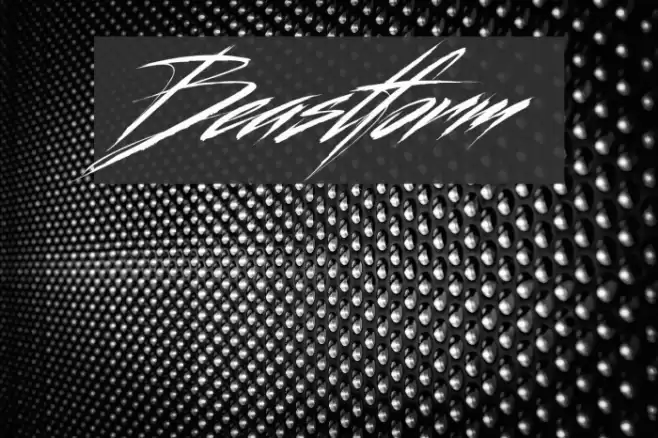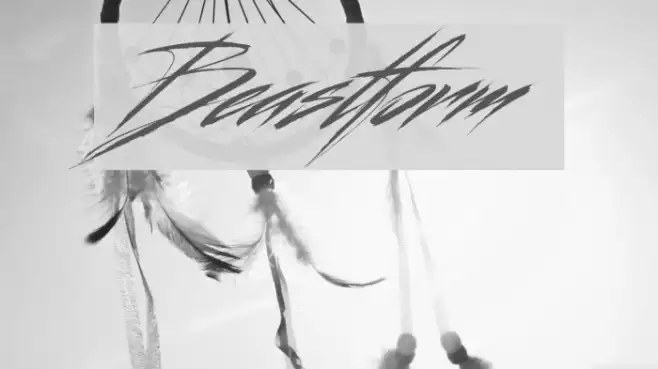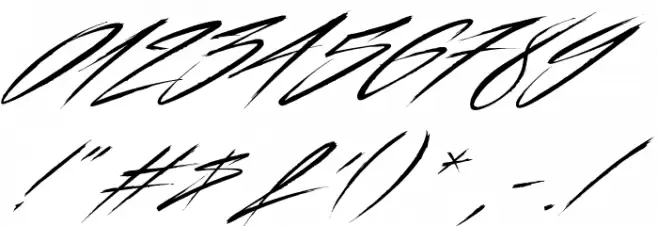
Beastform Font
Beastform Description
This font exhibits a dynamic and aggressive style, characterized by sharp, angular strokes and a sense of motion. The letters are slanted, giving a sense of speed and energy, reminiscent of calligraphic brush strokes. The uppercase and lowercase letters maintain a consistent style, with elongated forms and exaggerated curves. The numerals and special characters follow the same energetic design, ensuring a cohesive look across all characters. The font's unique style makes it stand out, ideal for projects that require a bold and expressive touch.
A dynamic, angular font with sharp strokes and a sense of motion from Uncategorized fonts.
- Proposed Projects: Perfect for sports branding, music album covers, dynamic posters, and edgy fashion labels.
- Width: Condensed
- Character Spacing: Tight
- Contrast: High
- Overall Style: Modern, Energetic
- Use Case: Logos, Headlines, Posters